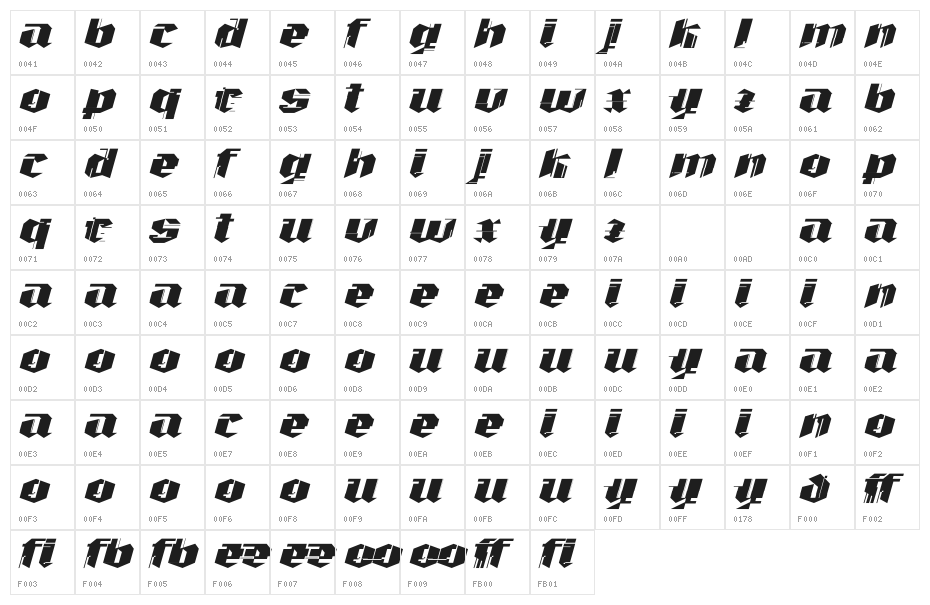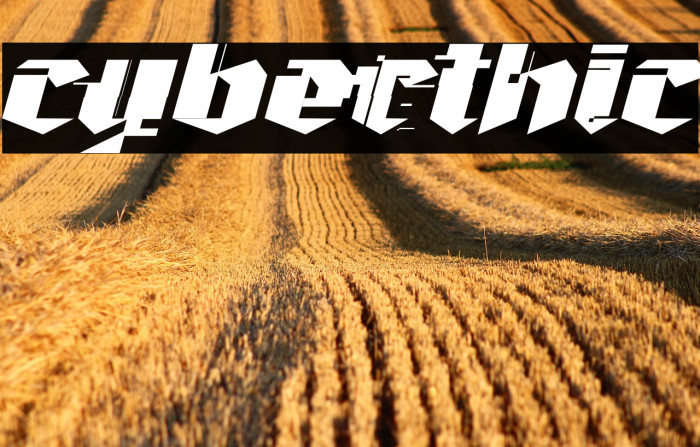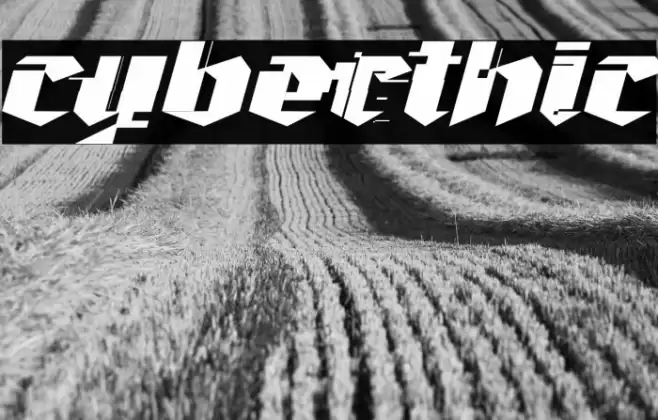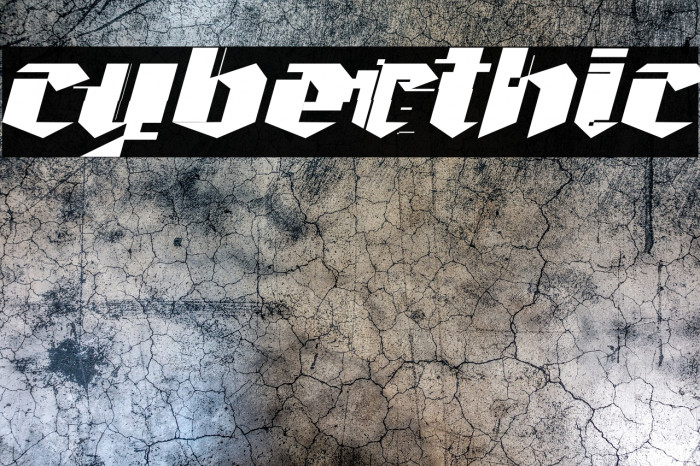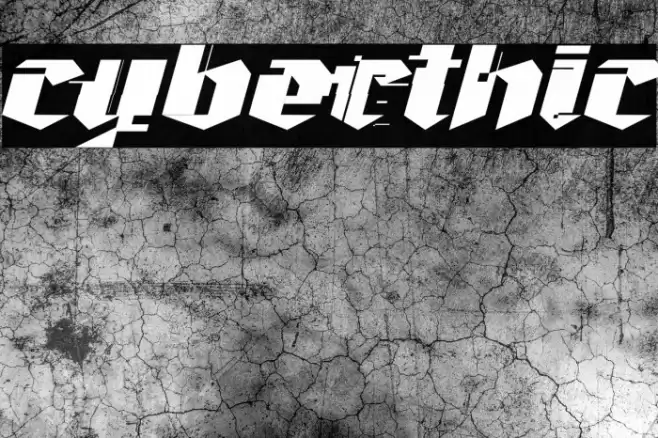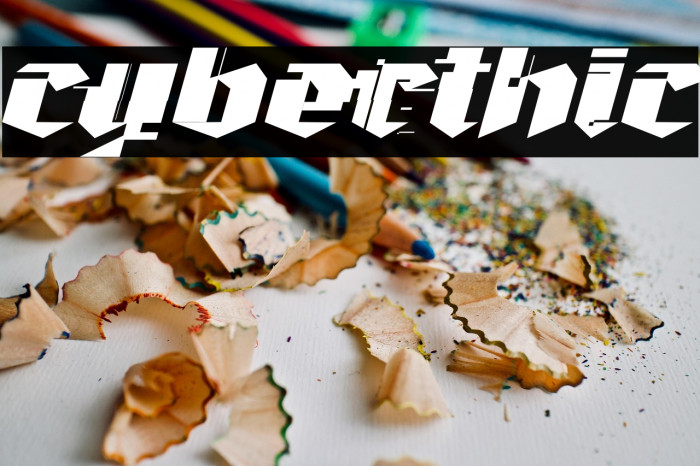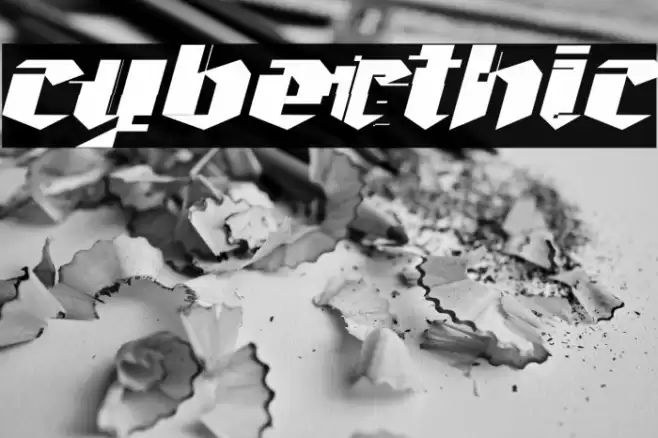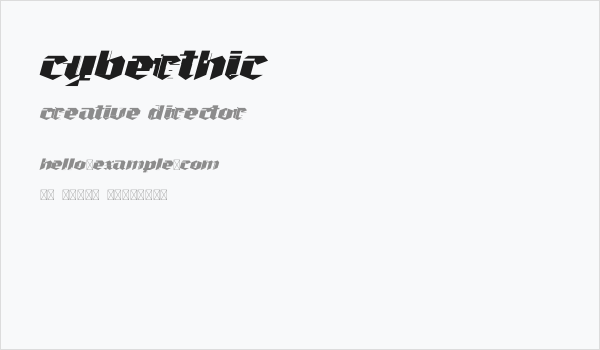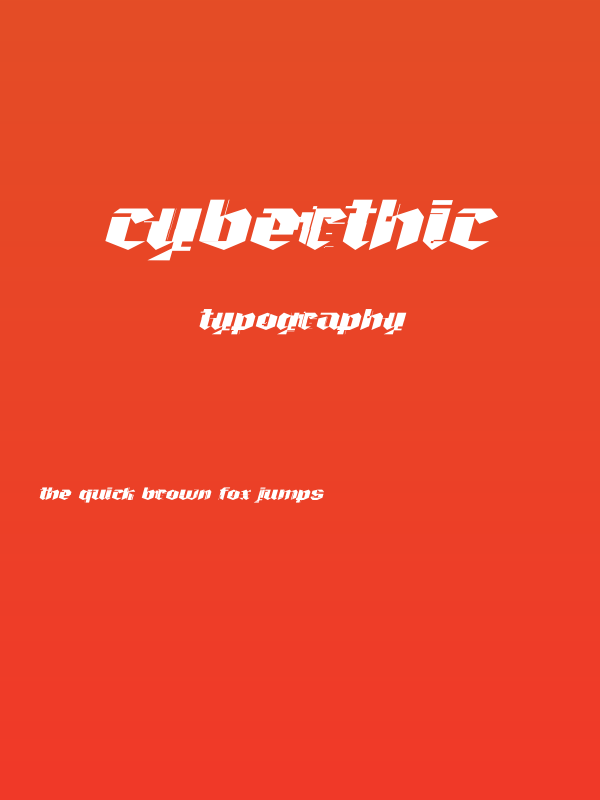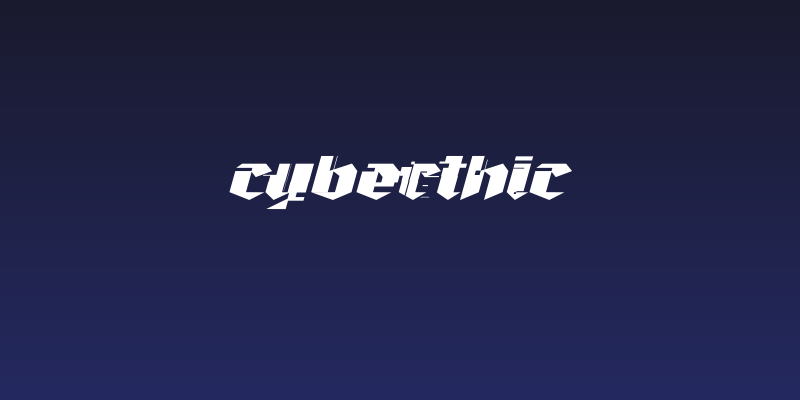
Cyberthic Font
Cyberthic Description
This font features a bold, angular design with a futuristic and edgy aesthetic. The characters are sharply cut with distinct geometric shapes, giving them a dynamic and aggressive appearance. The font has a strong presence, making it suitable for attention-grabbing designs. The uppercase and lowercase letters maintain a consistent style, with the lowercase being slightly more compact. The numbers and special characters follow the same angular theme, ensuring uniformity across all glyphs. This font is ideal for projects that require a modern and impactful look, such as technology-related branding or sci-fi themed designs.
| Proposed Projects | Ideal for technology branding, sci-fi themes, and modern, impactful designs. |